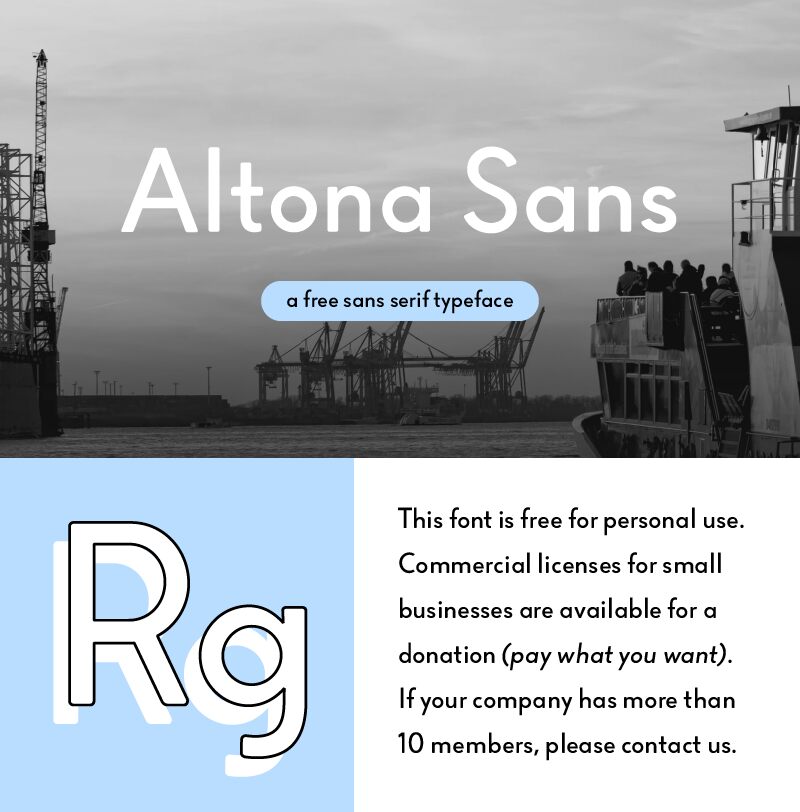
Altona Sans Regular
There are just a few places on the world where I truly feel home. And one of them is the beautiful German borough Altona located in my favorite city Hamburg. Ive been working on this font project for almost five years now and I finally made the decision to finalise and release the first style for the Altona Sans Family. The intention was to create an unique and beautiful typeface, that can be accessed by everyone.